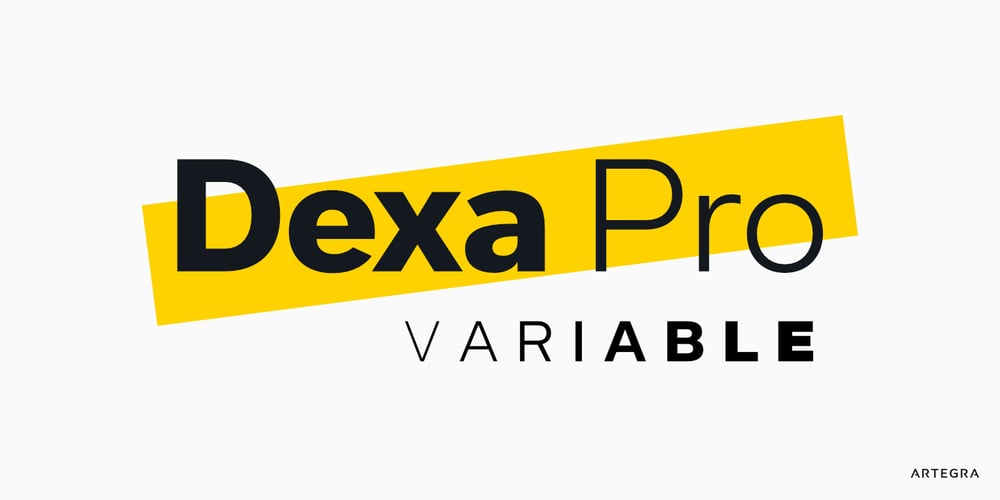
Dexa Pro Variable Font Family was designed by Ceyhun Birinci and published by Artegra. Dexa Pro Variable contains 8 styles and family package options. Dexa Pro is now available on variable version. The family was designed by Ceyhun Birinci in 2020 with an inspiration to create a contemporary super family with inspiration from classic sans serif families. It’s a workhorse family consisting of condensed, narrow, normal and expanded widths. Each width has a wide weight range from thin to black, along with their true italic counterparts. With more than 770 glyphs per font, It offers a ton of language support from all the Latin languages to Cyrillic.